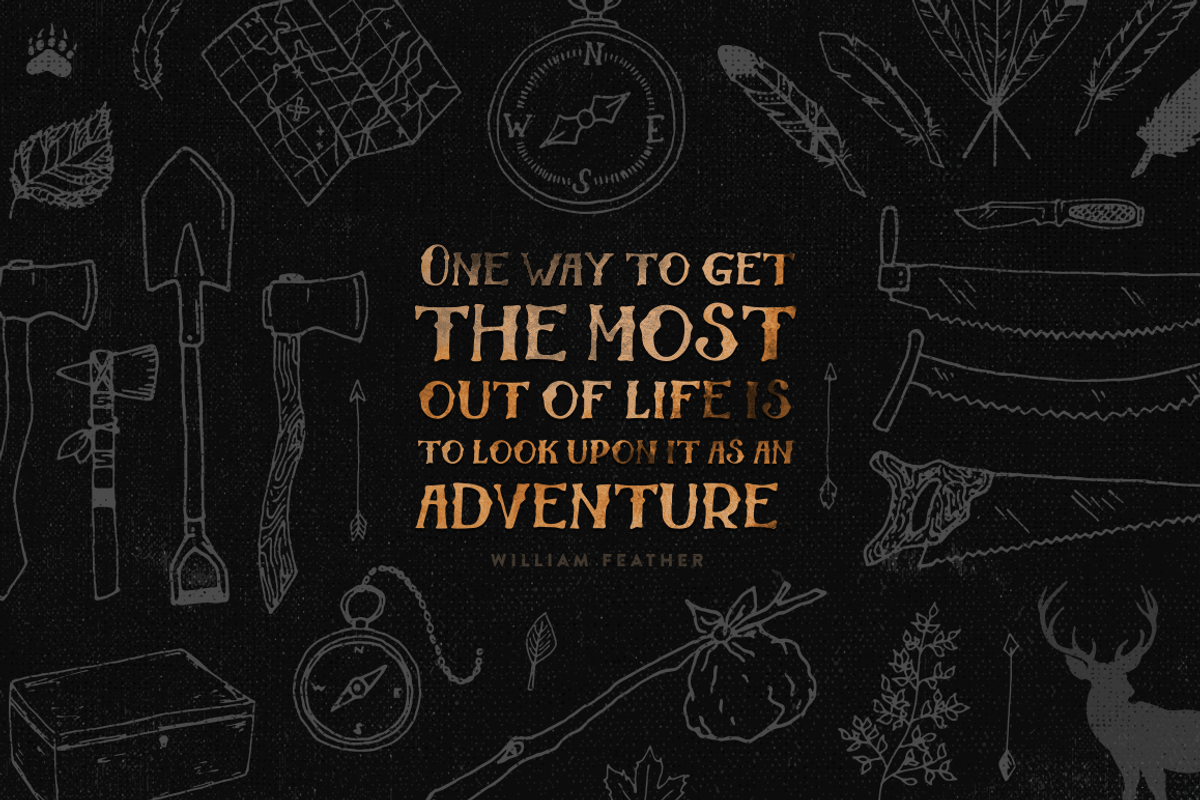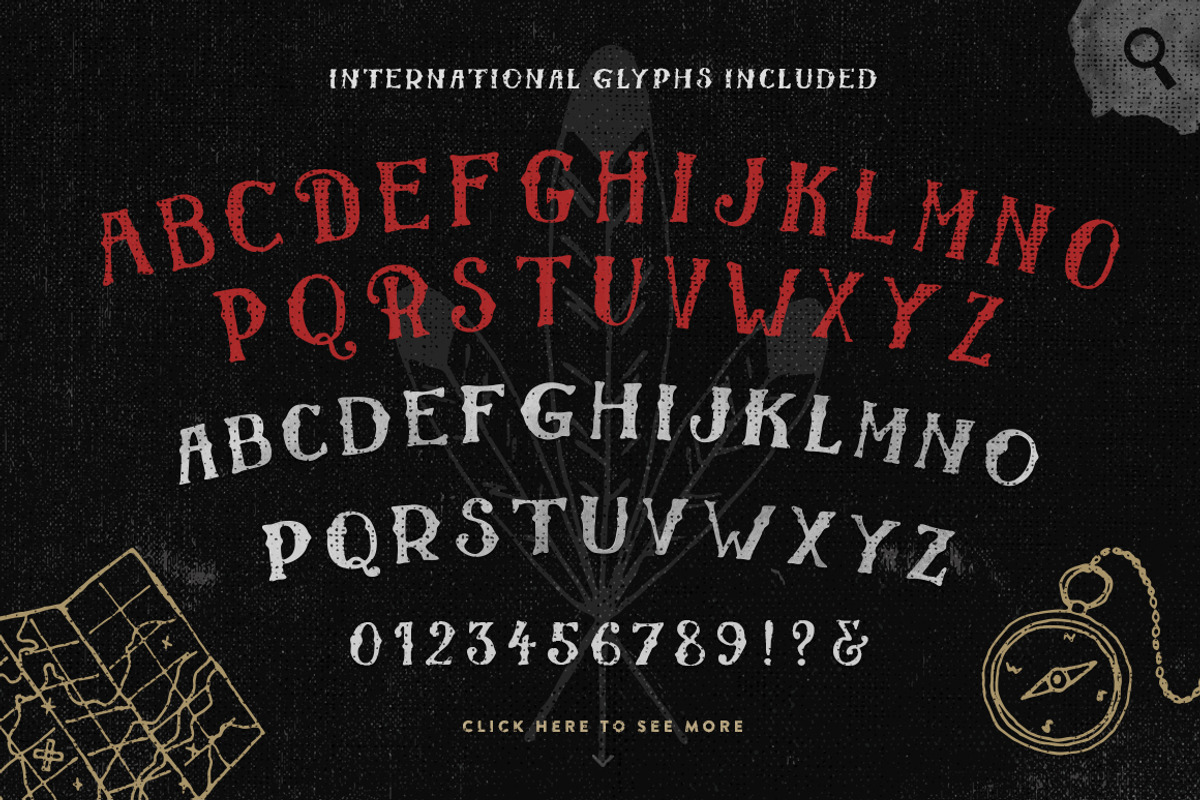
El Capitan - Handdrawn Font + Bonus
El Capitan - Handdrawn Font + Bonus by Petr Knoll is a font selected for branding, posters, packaging, typography.
- The font supports accented characters and can be used for various purposes such as headings, logos, t-shirt designs, lables, posters, badges
- El Capitan Regular
Why El Capitan - Handdrawn Font + Bonus is worth a look
El Capitan - Handdrawn Font + Bonus by Petr Knoll fits naturally into Branding, posters, packaging, typography.